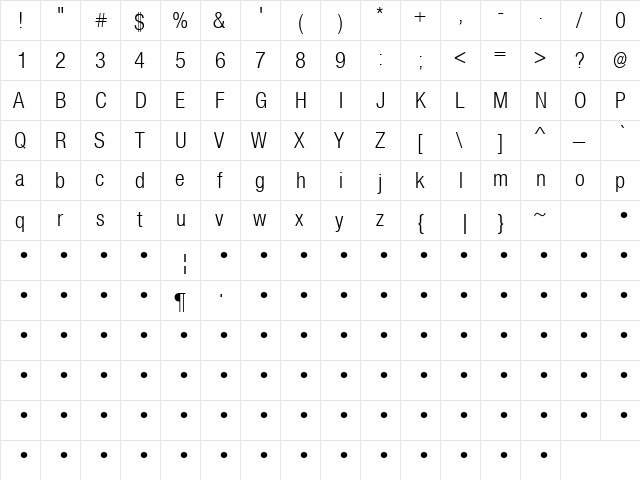
QTHelvetCnd-Light Regular
Design Context for QTHelvetCnd-Light Typeface
QTHelvetCnd-Light offers clean, dependable letterforms without strong stylistic allegiance, making it a practical choice for designers who need flexibility. Its slender proportions lend an understated elegance to any composition.